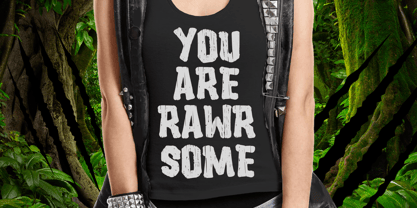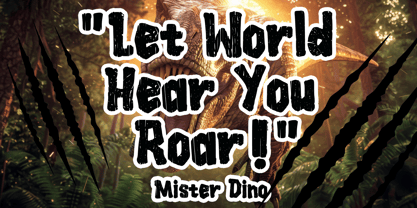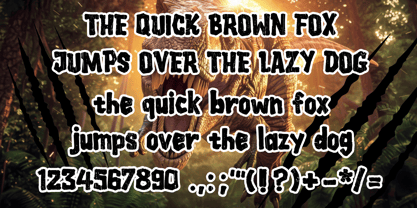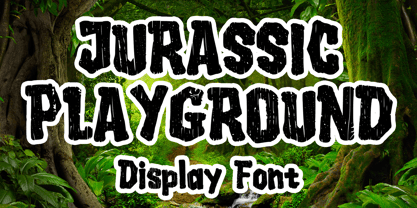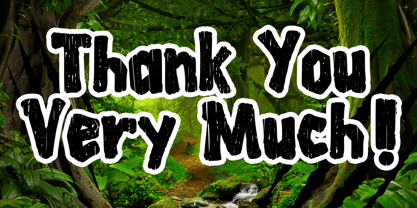
Jurassic Playground
by Mvmet
Immerse yourself in the enchanting world of prehistoric times with Jurassic Playground, a captivating display font featuring a rustic wood texture. Inspired by lush jungle landscapes and magnificent dinosaurs, this font adds a touch of merriment and vivacity to every design it adorns. Perfect for charming children's literature, spirited party essentials, and welcoming greeting cards, Jurassic Playground excels in bringing liveliness and charm to your projects. This playful font is also ideal for striking t-shirt designs, creating adorable stickers, and crafting vivid posters and banners. Experience the joy of designing with Jurassic Playground and let its cheerful vibe infuse fun into your creations!